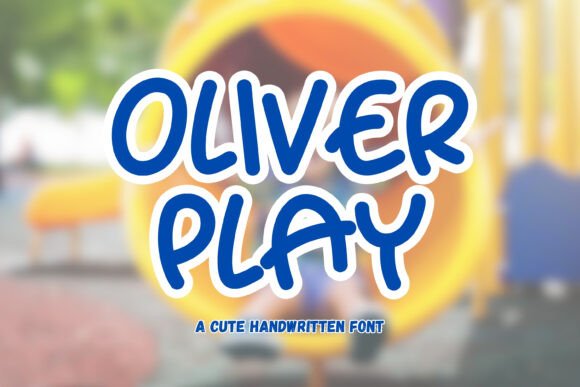
Oliver Play Font: Adding a Touch of Whimsy to Your Creative Projects
In the world of typography, fonts play a crucial role in conveying the tone and personality of a message. With the numerous font options available, finding the perfect one that combines style, readability, and uniqueness can be a daunting task. However, if you’re looking for a font that adds a fun and playful touch to your creative projects, look no further than the Oliver Play Font. This delightful font is designed to bring a smile to your audience’s faces, making it perfect for a wide range of applications, from quotes and invitations to social media posts and greeting cards.
What Makes Oliver Play Font Stand Out?
Oliver Play Font is a carefully crafted typeface that seamlessly blends a casual handwriting style with a modern aesthetic. Its rounded and quirky design makes it an excellent choice for designers seeking a friendly and approachable look. The font’s unique characteristics include:
- Playful and Whimsical Design: The Oliver Play Font features a fun and playful design that adds a touch of whimsy to any project.
- Rounded and Quirky: The font’s rounded edges and quirky design elements make it perfect for projects that require a friendly and approachable tone.
- Easy-to-Read: Despite its playful design, the Oliver Play Font is easy to read, making it suitable for a wide range of applications.
- Versatile: The font’s versatility makes it perfect for various projects, from personal designs to commercial purposes.
Perfect for a Wide Range of Projects
The Oliver Play Font is an excellent choice for various creative projects, including:
- Quotes: Add a touch of personality to your inspirational quotes and sayings.
- Invitations: Create playful and whimsical invitations for parties, events, and gatherings.
- Social Media Posts: Stand out on social media with eye-catching posts that showcase your creative side.
- Greeting Cards: Design personalized greeting cards for special occasions, such as birthdays, holidays, and weddings.
- Posters: Create visually appealing posters for events, promotions, and campaigns.
Design Tips for Using Oliver Play Font
To get the most out of the Oliver Play Font, consider the following design tips:
- Pair with Contrasting Fonts: Pair the Oliver Play Font with contrasting fonts to create visual interest and hierarchy.
- Use Bold and Italic Variations: Experiment with bold and italic variations to add emphasis and create visual flow.
- Balance with White Space: Balance the font’s playful design with white space to avoid visual overload.
- Experiment with Colors: Try out different color schemes to find the perfect combination that matches your project’s tone and personality.
The Benefits of Using Oliver Play Font
The Oliver Play Font offers numerous benefits for designers and creatives, including:
- Unique and Memorable: The font’s playful design makes it unique and memorable, helping your projects stand out.
- Time-Saving: The font’s versatility saves time and effort, as it can be used for a wide range of projects.
- Easy to Read: The font’s easy-to-read design ensures that your message is conveyed clearly and effectively.
- Scalable: The font is scalable, making it perfect for various applications, from digital media to print materials.
Perfect for Children’s Projects
The Oliver Play Font is an excellent choice for children’s projects, including:
- Children’s Books: Create engaging and interactive children’s books with a playful font.
- Educational Materials: Design educational materials, such as worksheets, activity sheets, and posters, that are fun and engaging.
- Kids’ Party Invitations: Create playful and whimsical party invitations that kids will love.
Using Oliver Play Font for Commercial Purposes
The Oliver Play Font is suitable for commercial use, making it perfect for:
- Branding: Use the font to create a unique and memorable brand identity.
- Advertising: Create eye-catching advertisements that showcase your brand’s personality.
- Packaging: Design visually appealing packaging that stands out on store shelves.
In conclusion, the Oliver Play Font is a fun and playful font that adds a unique touch to your creative projects. Its rounded and quirky design makes it perfect for designers seeking a friendly and approachable look. With its versatility, easy-to-read design, and scalability, this font is suitable for a wide range of applications, from personal projects to commercial purposes. Whether you’re a designer, creative, or business owner, the Oliver Play Font is an excellent choice for adding a touch of whimsy to your projects.